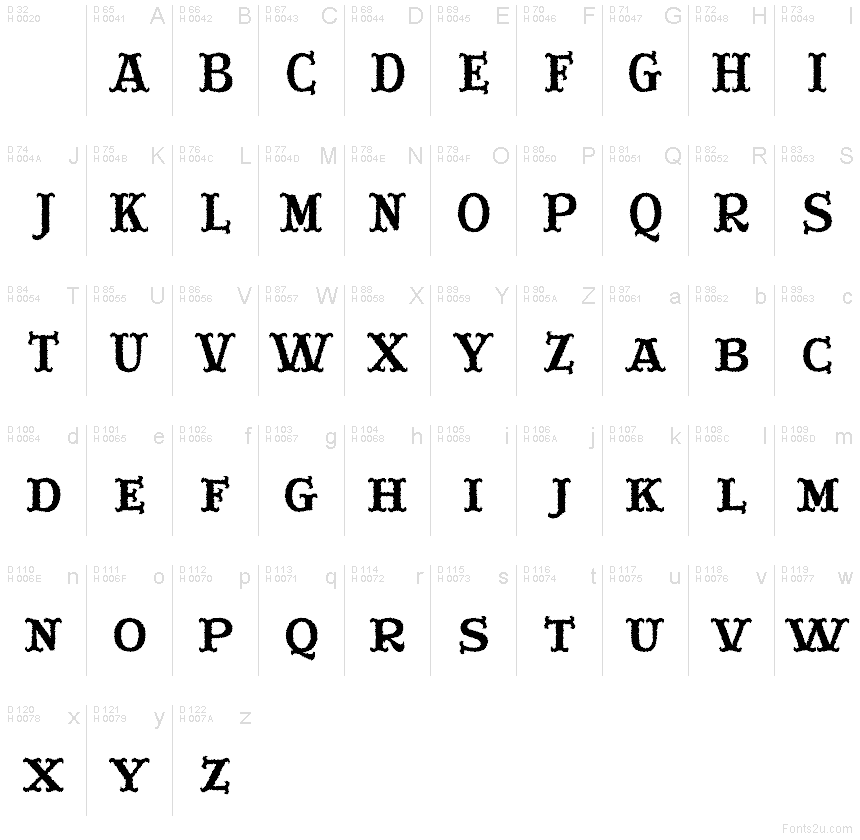
Melrin Rough Regular Demo
Melrin Rough font by Craft Supply Co. is a display vintage serif with grungy texture and irregular forms. It has a distressed appearance that evokes historical vibes as well as Gothic influences. Melrin’s letters all have intimate high-contrasting proportions that make the font ideal for big header sizes, almost exclusively in branding purposes.
Each of packaging designs, book covers, movie posters, magazines’ interiors or covers will benefit from Melrin Rough almost certainly. Logo design is also possible with adequate ideas flowing around this interesting piece of type.